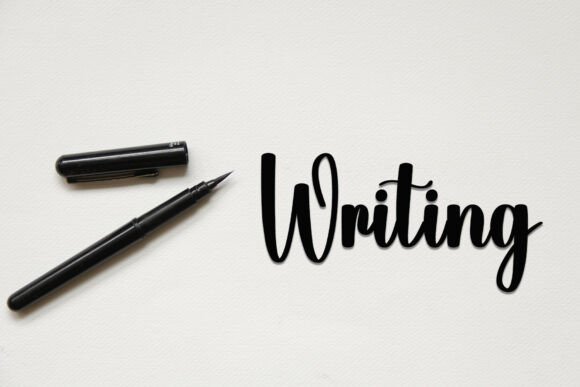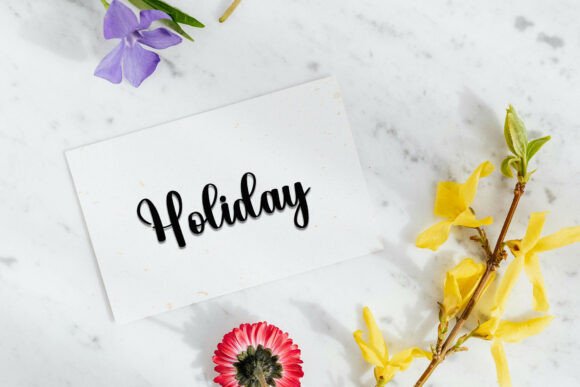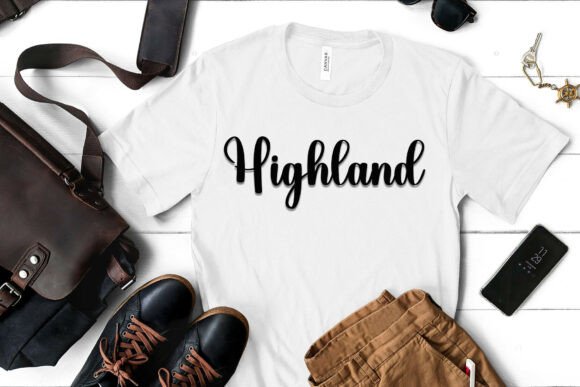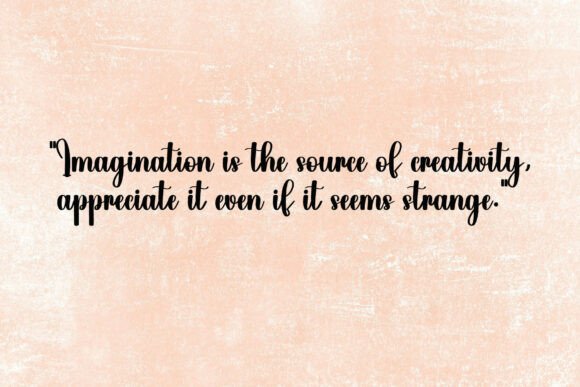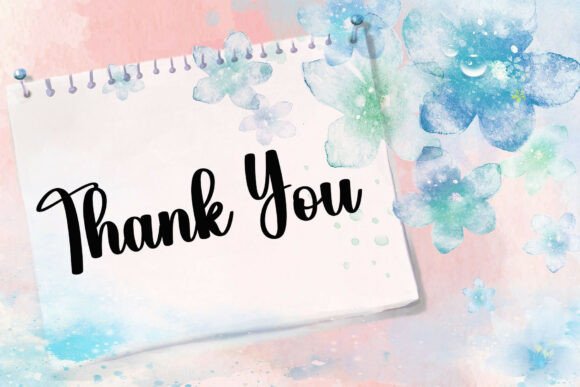
Discover the Charm of Adventure Font: Elevate Your Creativity with a Friendly and Versatile Handwritten Style
Are you on the lookout for a font that can add a personal touch to your creative projects? Look no further than Adventure Font, a cute and casual handwritten font that exudes an incredibly friendly feel. This versatile font is perfect for designers, crafters, and DIY enthusiasts who want to turn their ideas into stunning works of art.
The Allure of Adventure Font
Adventure Font is more than just a font – it’s an invitation to explore your creativity and bring your imagination to life. Its handwritten style is warm, approachable, and bursting with personality, making it ideal for a wide range of projects, from social media graphics and Instagram posts to calligraphy scripts and DIY crafts.
What Makes Adventure Font So Special?
- Cute and Casual: Adventure Font boasts a playful, laid-back vibe that’s perfect for creating relaxed and informal designs.
- Handwritten with Love: The font’s handwritten style gives it a personal, human touch that’s hard to replicate with generic fonts.
- Incredibly Friendly: The font’s friendly feel makes it perfect for designs that require a approachable and inviting tone.
- Versatile: Adventure Font can be used for a wide range of projects, from digital designs to print materials and DIY crafts.
Perfect for Instagram and Social Media
In today’s digital age, having a strong online presence is crucial. Adventure Font is an excellent choice for Instagram and social media graphics, as it can help you stand out from the crowd and establish a unique visual identity. Whether you’re a blogger, influencer, or business owner, this font can help you create engaging and shareable content that resonates with your audience.
Unlock Your Creativity with Adventure Font
Adventure Font is not just a font – it’s a creative tool that can help you unlock your full potential. Whether you’re working on a DIY project, designing a logo, or creating social media graphics, this font can help you add a personal touch and make your designs more engaging.
DIY Projects Made Easy
For crafters and DIY enthusiasts, Adventure Font is a dream come true. The font’s calligraphy script style makes it perfect for a wide range of DIY projects, from handmade cards and invitations to craft labels and signs.
Tips for Using Adventure Font
- Experiment with Colors: Adventure Font looks great in a variety of colors, so don’t be afraid to experiment and find the perfect hue for your design.
- Play with Sizes: The font’s versatility means it can be used in a range of sizes, from small captions to large headings.
- Mix and Match: Combine Adventure Font with other fonts and design elements to create unique and eye-catching designs.
Adventure Font is a game-changer for designers, crafters, and DIY enthusiasts who want to add a personal touch to their creative projects. With its cute and casual handwritten style, friendly feel, and versatility, this font is sure to become a favorite in your design toolkit. So why wait? Discover the charm of Adventure Font today and unlock a world of creative possibilities!